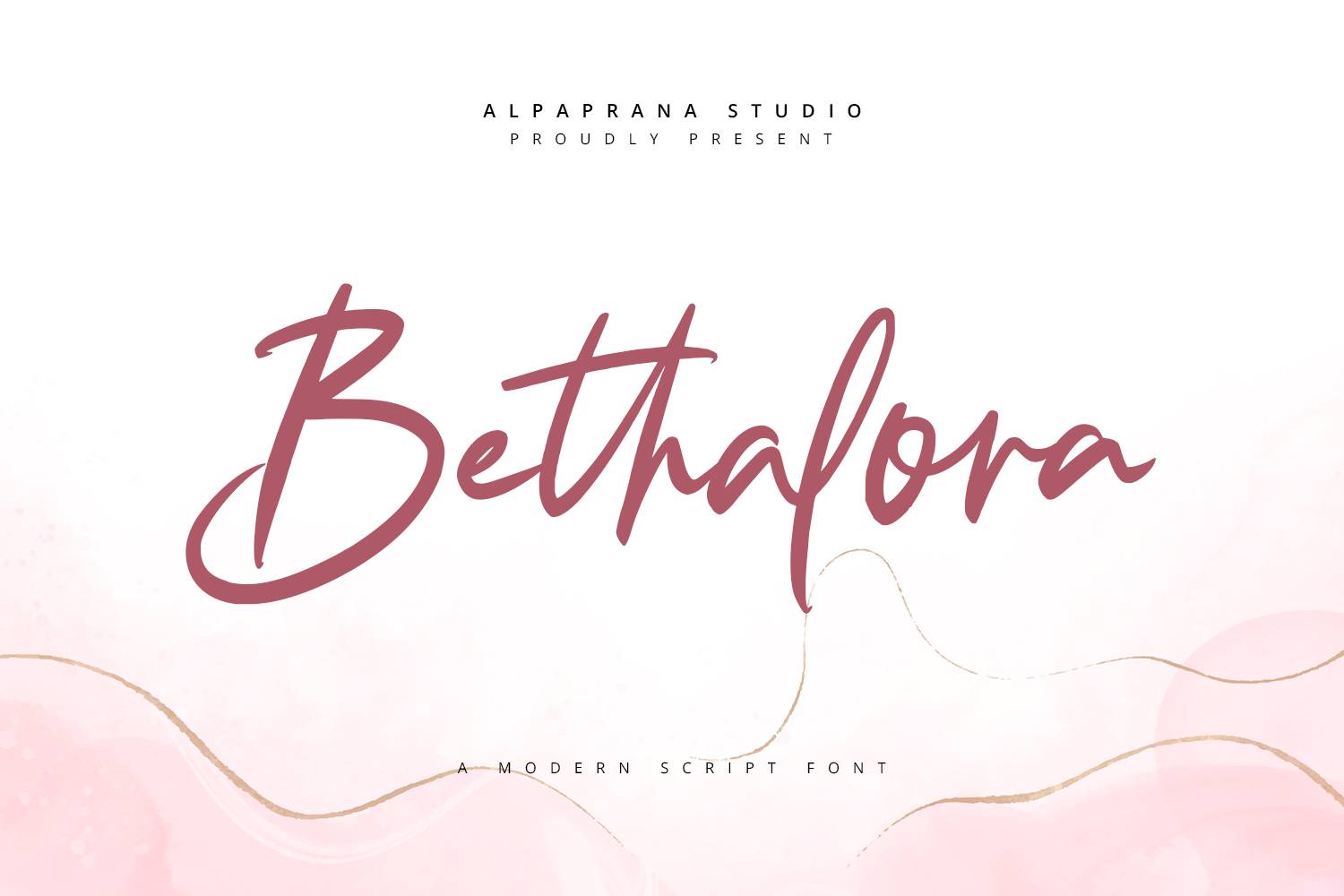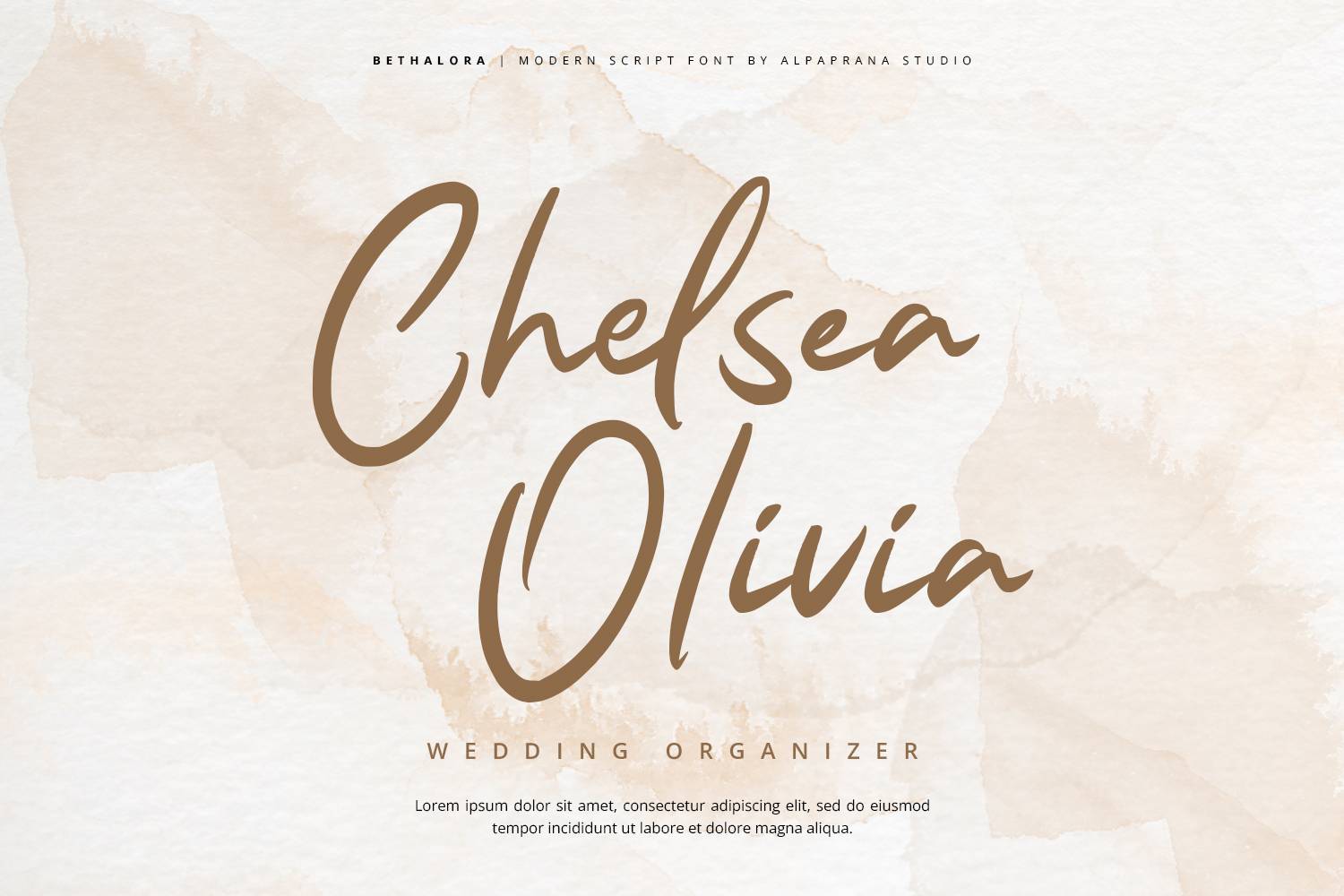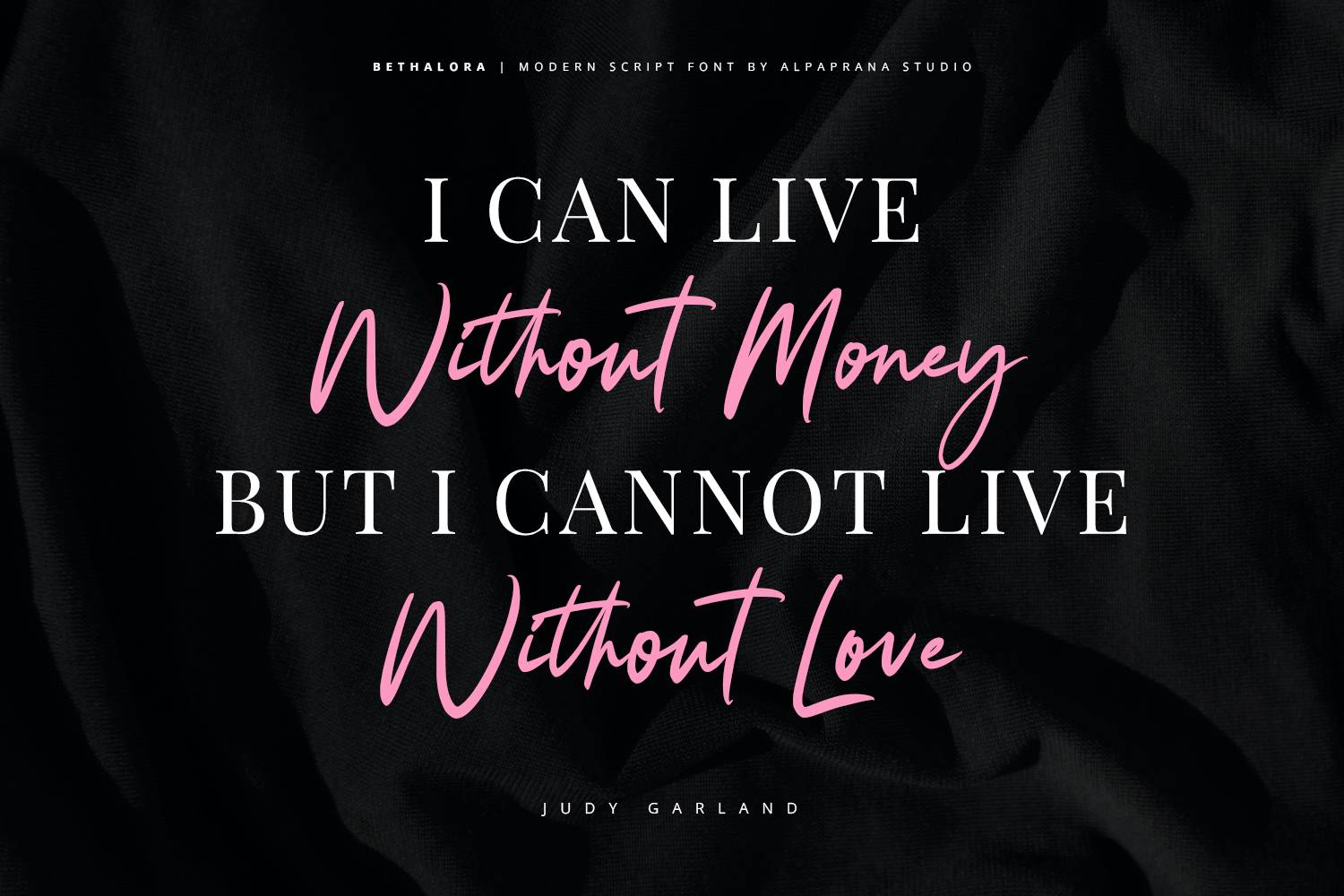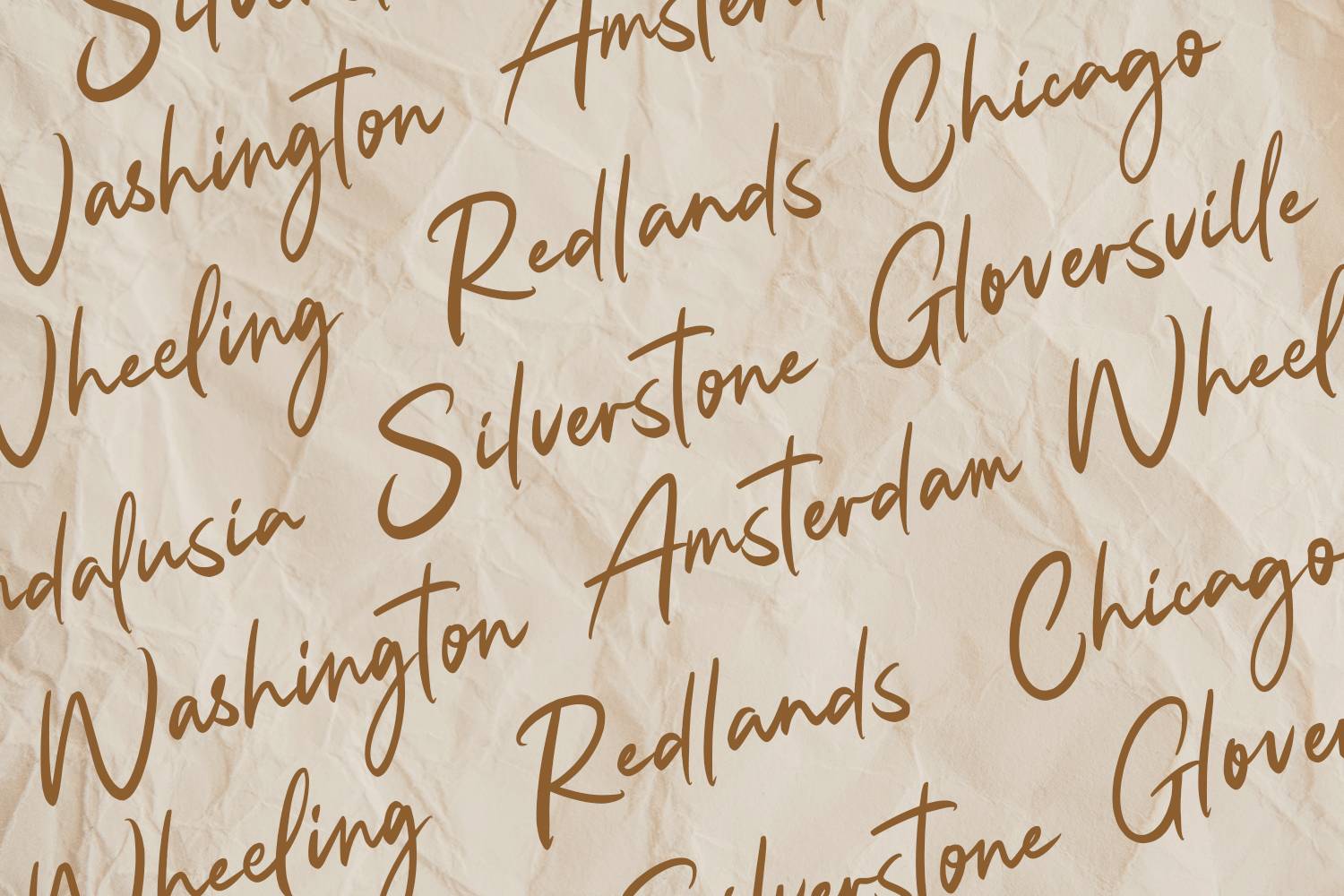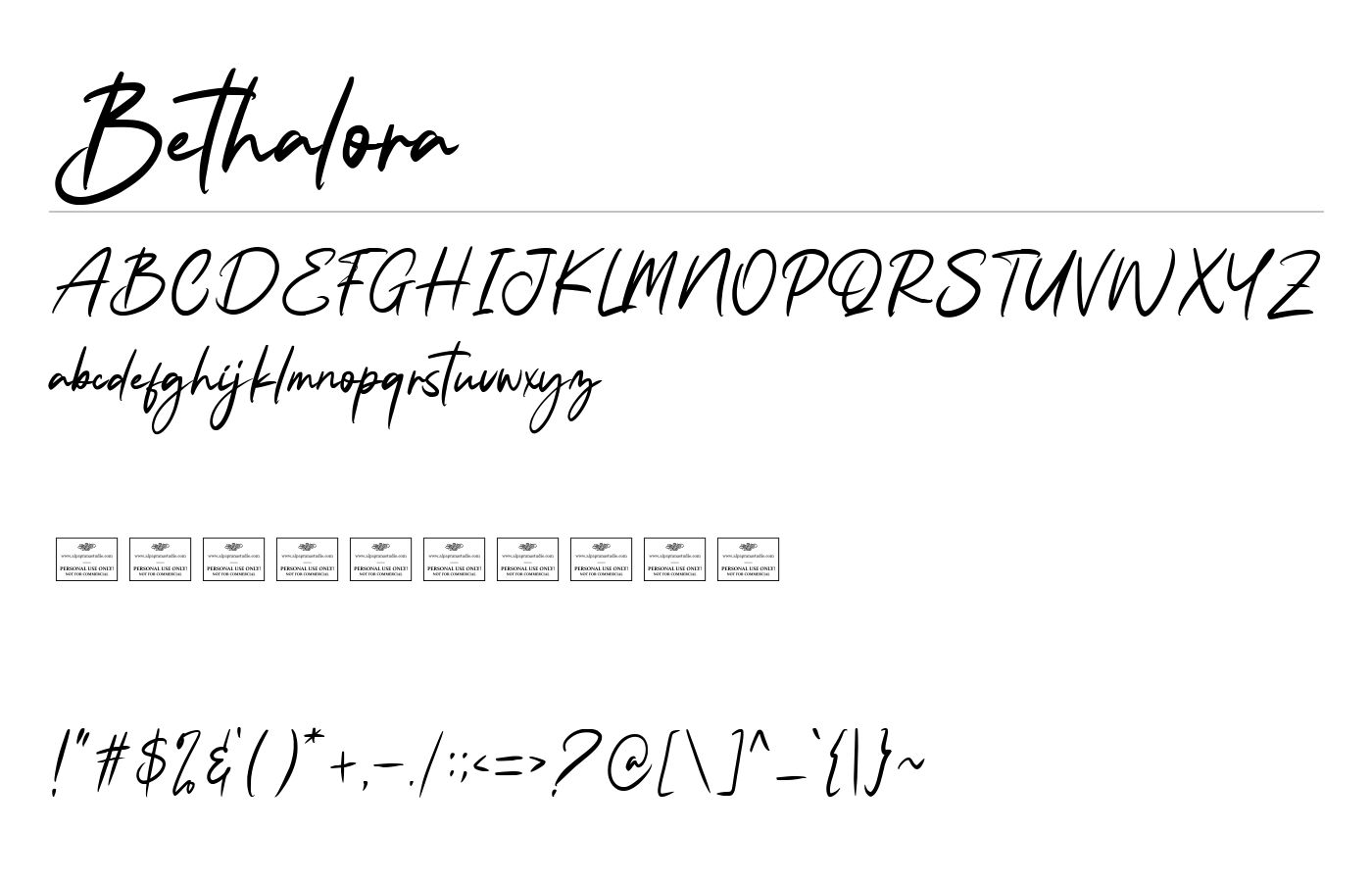
Bethalora is a lively, hand-drawn script font with a casual yet elegant feel, featuring smooth, flowing strokes and a natural, handwritten style. Its medium weight and upright, slightly condensed letterforms make it perfect for adding a personal, creative touch to branding, invitations, and social media designs. This font shines best in expressive headlines or logos where a warm, approachable vibe is desired.
Bethalora Font
About Bethalora Font